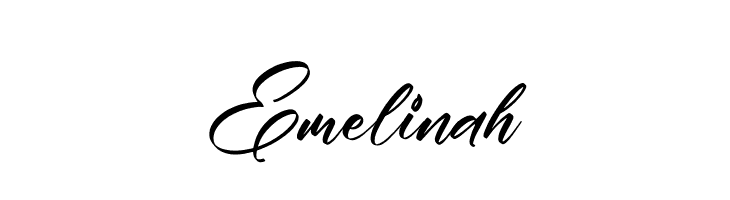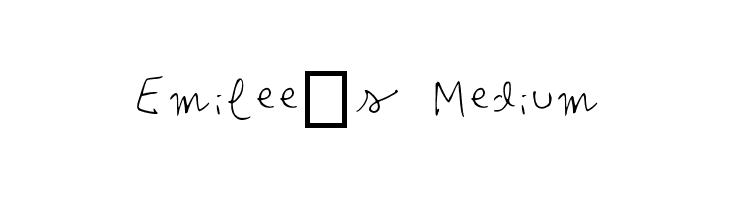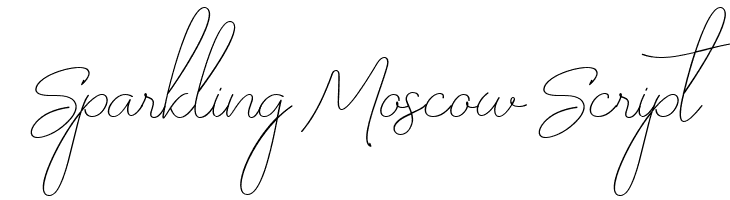
( Fonts by Andi Moz )
A playful, whimsical script font with flowing, cursive letterforms and moderate contrast.
( Fonts by Sizzleprint )
A playful, handwritten font with an informal and personal style.
( Fonts by Sizzleprint )
A playful, handwritten marker-style font with bold, irregular strokes.
( illustrateddaydreams.tumblr.com/ )
A playful, handwritten font with a casual and friendly style.
( Fonts by Scratchones )
Playful handwritten script with whimsical accents.
( Fonts by olivetype )
Playful handwritten font with smooth curves.
( Fonts by Letterhanna Type Foundry )
A graceful script font with flowing, interconnected letterforms and elegant curves.
( Fonts by Zamroni Hamzah )
( Fonts by MJType )
Casual, rounded handwritten font with playful character.
( Fonts by Mozyen Studio )
A bold, handwritten font with dynamic and energetic strokes.
( Fonts by Kus Yoyok Amg )
A playful, casual handwritten font with smooth, flowing lines.
( Fonts by Steven Joss )
Playful handwritten font with a casual style.
( Fonts by NihStudio )
Expressive, loose handwritten script with thin, flowing lines.
( Fonts by Gassstype )
A classic, elegant script font with intricate, flowing strokes and ornamental details.
( Fonts by QueenType )
Casual, energetic handwritten font.
( Fonts by Skiiller Studio )
Bold, playful handwritten font.
( Fonts by Moonstone Co )
A bold, playful script font with smooth, rounded strokes and a dynamic slant.
( Fonts by Paily Studio )
A bold, handwritten font with dynamic strokes and a playful vibe.
( www.facebook.com/artistic.reema )
A playful, handwritten font with a casual and organic feel.
( Fonts by junkohanhero )
A hand-drawn, rustic font with elongated, irregular strokes and a vintage feel.
( Fonts by ONG Type )
Tall, quirky sans-serif with playful, spooky character.
A playful, spooky font with quirky, uneven letterforms and bold strokes.
( Fonts by Andi Moz )
A whimsical script font with flowing, interconnected letters and a playful, elegant style.
( Fonts by Scratchones )
A playful, handwritten font with an elegant and whimsical style.
( Fonts by Inermedia Studio )
A playful, hand-drawn font with rounded edges and a whimsical style.
( Fonts by creatype designer )
A lively, cursive font with a playful, handwritten style.
( Fonts by Xerographer Fonts )